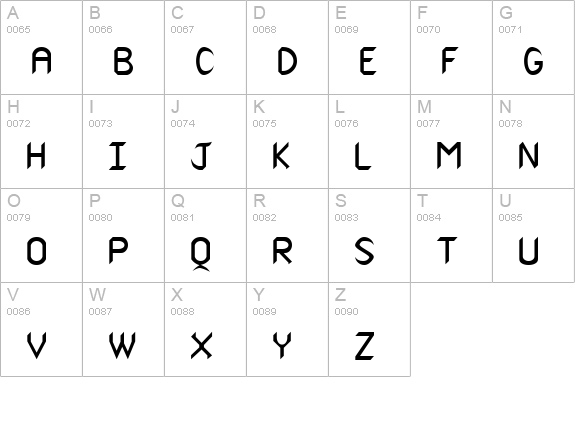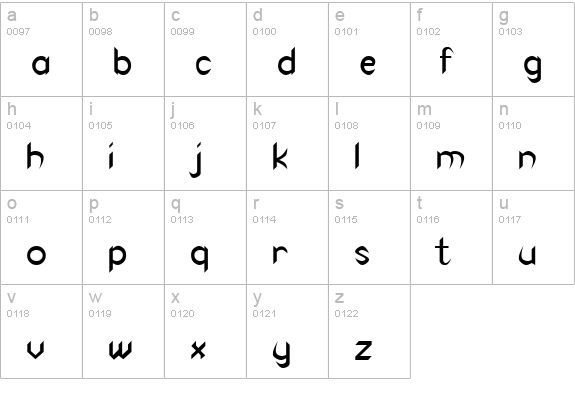
Spike Normal is the standard, neutral variant in the Spike typeface family \xE2\x80\x94 well suited to general body text, paragraphs, and standard typographic work.
Spike Normal font is a sleek and stylish typeface that exudes a contemporary feel. With its clean lines and sharp edges, this font is perfect for creating eye-catching designs and enhancing the overall visual appeal of your projects. The balanced letterforms and consistent spacing make it highly legible and easy to read, making it suitable for a wide range of applications, from branding and logos to print and digital designs. What sets Spike Normal font apart is that it is not only visually appealing but also freely available to download at FontsMarket.com. This means that you can enjoy the benefits of this exceptional font without any cost. Whether you are a professional designer looking to enhance your creative projects or an individual seeking to add a touch of elegance to personal documents, Spike Normal font is the perfect choice. By downloading Spike Normal font from FontsMarket.com, you gain access to a versatile and high-quality typeface that can elevate your design work to new heights. Its versatility allows it to be used in various contexts, from advertising materials and website headers to invitations and social media graphics. The wide range of characters and glyphs ensure that you have all the tools you need to create visually stunning and engaging designs. In addition to its striking visual appeal and availability as a free download, Spike Normal font also offers excellent compatibility across different platforms and software. Whether you are working on a Mac or PC, you can seamlessly integrate this font into your preferred design software and start creating captivating typographic compositions. Overall, Spike Normal font is a must-have for anyone looking to make a bold statement with their typography. Its modern aesthetic, legibility, and availability as a free download make it a valuable addition to any designer's toolkit. So why wait? Head over to FontsMarket.com and download Spike Normal font today to unlock its full potential and take your designs to the next level.